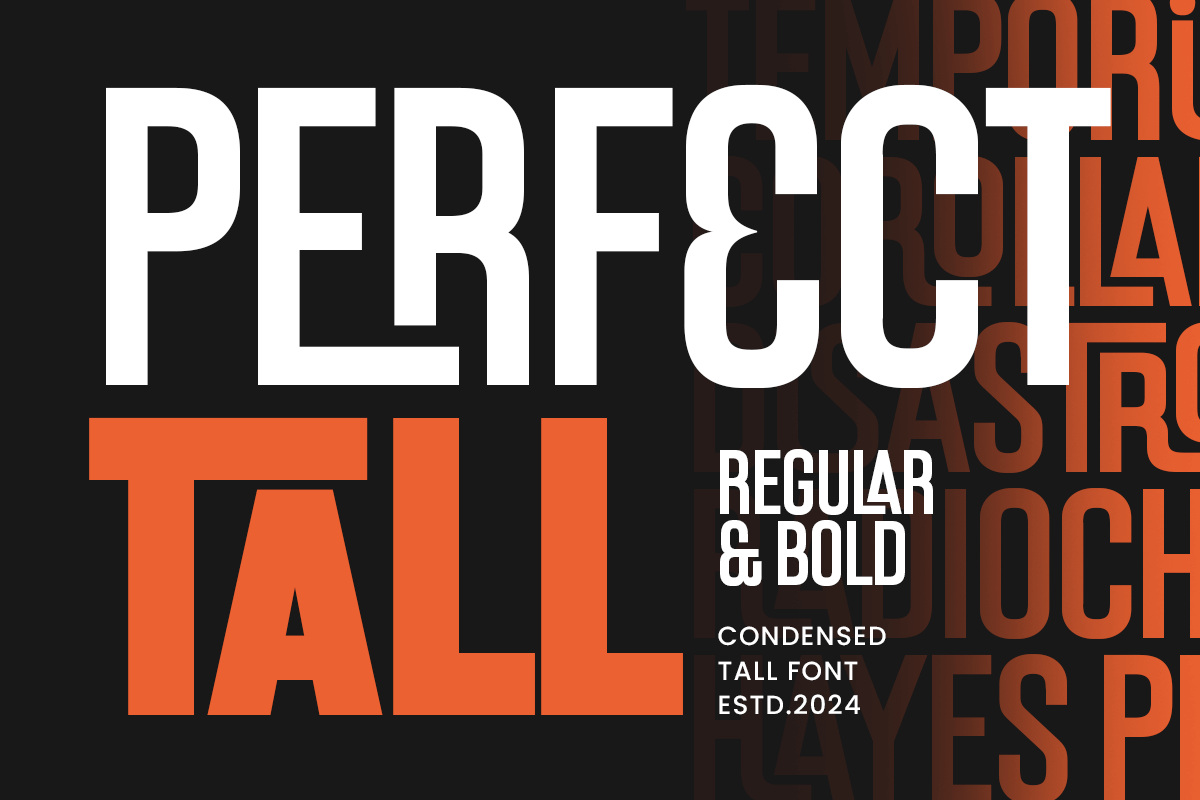
Perfect Tall
-Condensed Font with Ligature
Perfect Tall is a condensed tall font designed for impactful, modern typography. Its elongated letterforms and sleek design make it ideal for striking headlines, sophisticated branding projects, and unique editorial layouts. Perfect Tall stands out by adding height and elegance to your work, creating a refined yet commanding presence.
Crafted with precision, this font enhances readability while maintaining a chic and contemporary look. Whether you're designing logos, posters, or digital media, Perfect Tall brings sophistication and distinctiveness that elevates your project’s appeal.
Select Perfect Tall to emphasize bold statements and draw attention with its minimalist style. Its versatility makes it suitable for fashion lookbooks, marketing materials, and any creative venture where clarity and visual impact are key.
Perfect Tall Condensed Tall Font Features:
• Tall Condensed Characters Ready
• Ready with Ligature Characters
• Available in Regular & Bold Version
• Unique Punctuation, Number, and Symbol